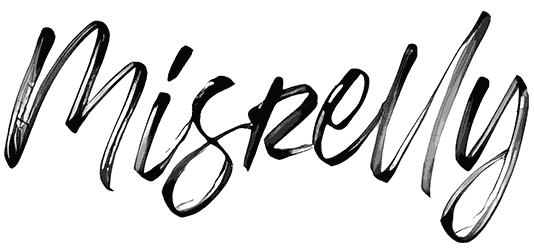
Misrelly Font
Since the characters’ form of Misrelly is in a moderate position, neither too modern nor too classic, it can be included in a wide set of graphic content ranging from illustrations, brochures, product packaging, and social media posts to the user interface of applications.
Sharing a sense of professionalism, dynamism, vivacity, and diversity is a piece of cake with the help of its well-rounded curves and crooked letters. Generally, we strongly recommend you pick up this brush font.
Designed by: Creatype Studio